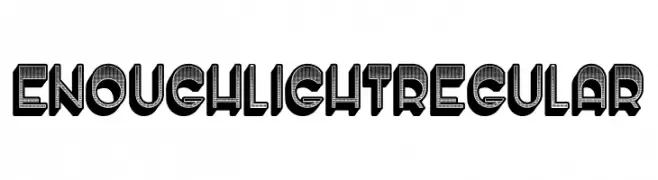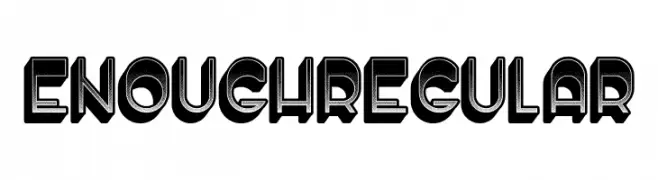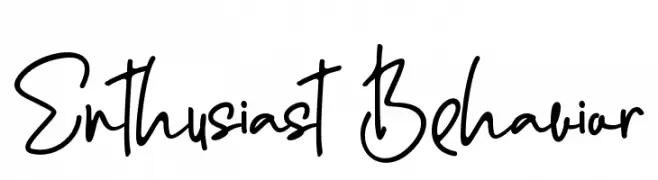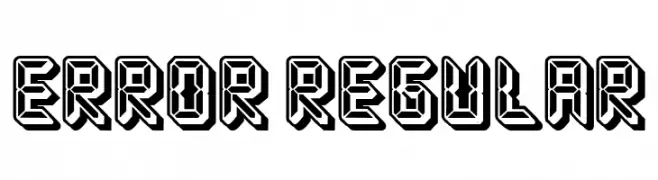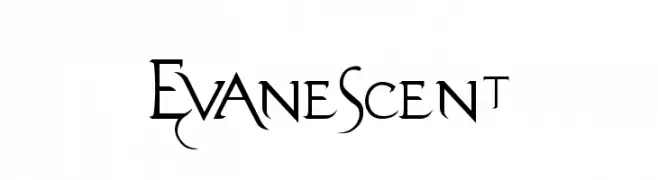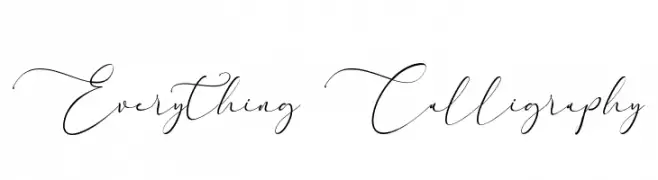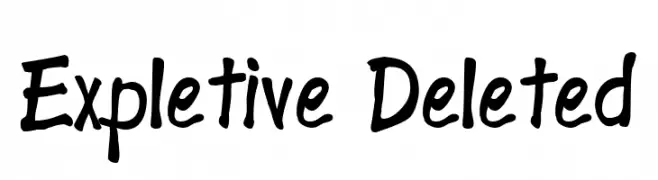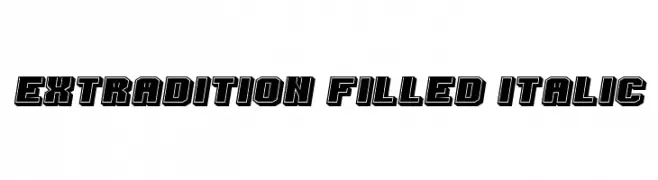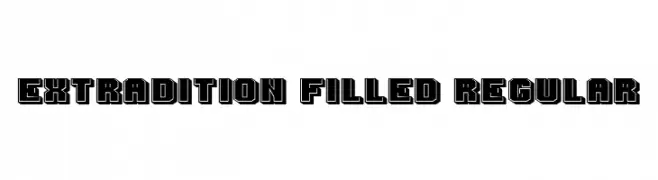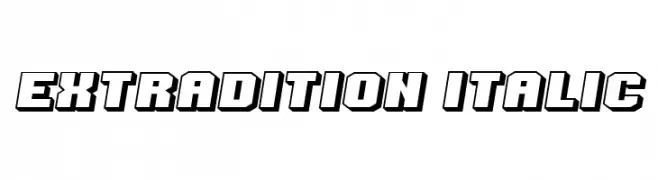
( Fonts by Vladimir Nikolic - https://www.creativefabrica.com/product/educated-deers/ref/144265/ - Personal-use only. For commercial use please contact owner. ) A bold, geometric font with a 3D effect and textured grid pattern. Download 47 Downloads@WebFont
( Fonts by Vladimir Nikolic - https://www.creativefabrica.com/product/educated-deers/ref/144265/ - Personal-use only. For commercial use please contact owner. ) A bold, 3D geometric font with shadow effects and inline details. Download 56 Downloads@WebFont
( Fonts by Alde Saputro - aldedesign - https://www.creativefabrica.com/product/the-crafty-holiday-font-bundle/ref/125925/ - Personal-use only. For commercial use please contact owner. ) A lively and expressive handwritten font with fluid strokes. Download 88 Downloads@WebFont
( Fonts by Vladimir Nikolic - https://www.creativefabrica.com/product/educated-deers/ref/144265/ - Personal-use only. For commercial use please contact owner. ) A bold, geometric font with a 3D block-like appearance and strong visual impact. Download 91 Downloads@WebFont
( Fonts by Alde Saputro - aldedesign - https://www.creativefabrica.com/product/the-crafty-holiday-font-bundle/ref/125925/ - Personal-use only. For commercial use please contact owner. ) A graceful calligraphic script font with elegant curves and loops. Download 744 Downloads@WebFont
( Fonts by GreyWolf Webworks - www.greywolfwebworks.com - Personal-use only. For commercial use please contact owner. ) A playful, handwritten font with irregular strokes and a casual vibe. Download 2564 Downloads@WebFont
( Fonts by Vladimir Nikolic - https://www.creativefabrica.com/product/educated-deers/ref/144265/ - Personal-use only. For commercial use please contact owner. ) A bold, filled, italicized font with a three-dimensional geometric style. Download 59 Downloads@WebFont
( Fonts by Vladimir Nikolic - https://www.creativefabrica.com/product/educated-deers/ref/144265/ - Personal-use only. For commercial use please contact owner. ) A bold, geometric font with a three-dimensional outline effect. Download 62 Downloads@WebFont
( Fonts by Vladimir Nikolic - https://www.creativefabrica.com/product/educated-deers/ref/144265/ - Personal-use only. For commercial use please contact owner. ) A bold, three-dimensional font with an italic slant and shadow effect. Download 88 Downloads@WebFont
( Fonts by Vladimir Nikolic - https://www.creativefabrica.com/product/educated-deers/ref/144265/ - Personal-use only. For commercial use please contact owner. ) A bold, three-dimensional block font with a modern, industrial feel. Download 150 Downloads@WebFont
( Fonts by Vladimir Nikolic - https://www.creativefabrica.com/product/educated-deers/ref/144265/ - Personal-use only. For commercial use please contact owner. ) A bold, geometric font with a digital, futuristic style. Download 68 Downloads@WebFont
( Fonts by Vladimir Nikolic - https://www.creativefabrica.com/product/educated-deers/ref/144265/ - Personal-use only. For commercial use please contact owner. ) A bold, geometric font with a 3D effect, perfect for modern designs. Download 100 Downloads@WebFont
( Fonts by Alde Saputro - aldedesign - https://www.creativefabrica.com/product/the-crafty-holiday-font-bundle/ref/125925/ - Personal-use only. For commercial use please contact owner. ) A graceful script font with hollow interiors and flowing, interconnected characters. Download 137 Downloads@WebFont
( Fonts by Alde Saputro - aldedesign - https://www.creativefabrica.com/product/the-crafty-holiday-font-bundle/ref/125925/ - Personal-use only. For commercial use please contact owner. ) An elegant script font with flowing, cursive style and intricate loops. Download 292 Downloads@WebFont
( Fonts by Vladimir Nikolic - https://www.creativefabrica.com/product/educated-deers/ref/144265/ - Personal-use only. For commercial use please contact owner. ) A playful font featuring cartoon-like animal faces with unique expressions. Download 58 Downloads@WebFont
( Fonts by Alde Saputro - aldedesign - https://www.creativefabrica.com/product/the-crafty-holiday-font-bundle/ref/125925/ - Personal-use only. For commercial use please contact owner. ) A lively, expressive handwritten font with fluid, dynamic strokes. Download 94 Downloads@WebFont
( Fonts by Vladimir Nikolic - https://www.creativefabrica.com/product/educated-deers/ref/144265/ - Personal-use only. For commercial use please contact owner. ) A bold, slanted font with a dynamic and modern style. Download 59 Downloads@WebFont
( Fonts by Sharkshock Productions----www.sharkshock.com. Personal-use only. For commercial use please contact owner. ) A bold, high-contrast display font with sharp serifs and tight spacing. Download 1088 Downloads@WebFont
( Fonts by Dennis Ludlow - Sharkshock Productions ) A playful, hand-drawn font with bold, rounded characters and a whimsical style. Download 589 Downloads@WebFont